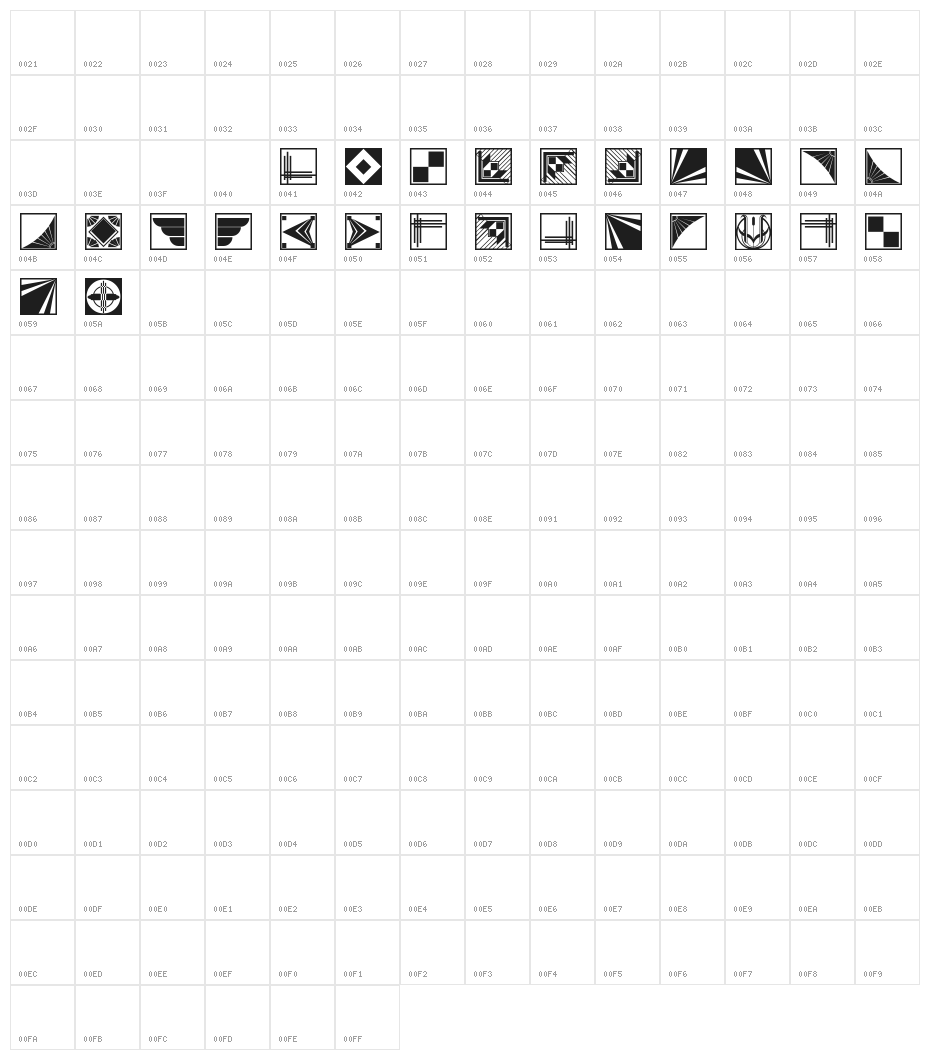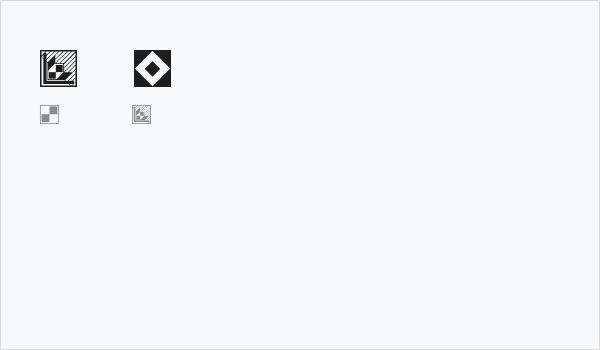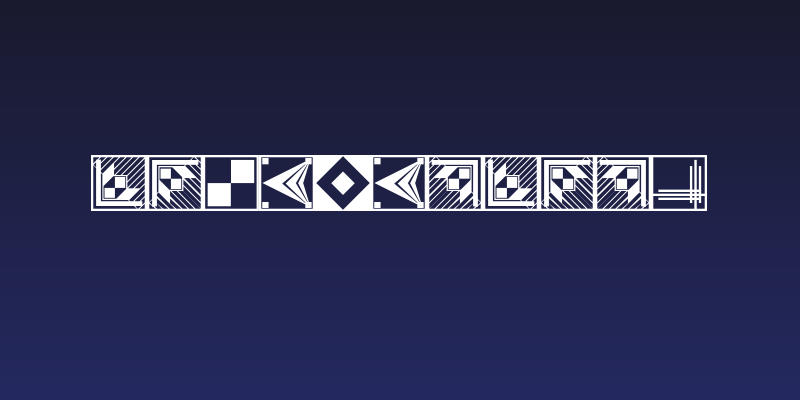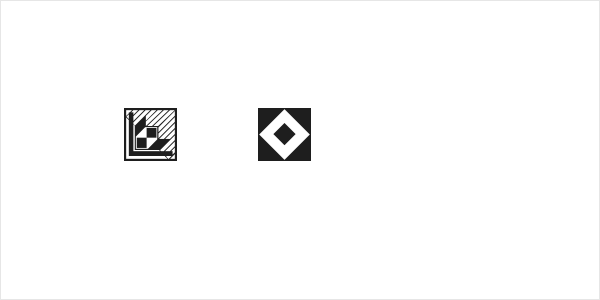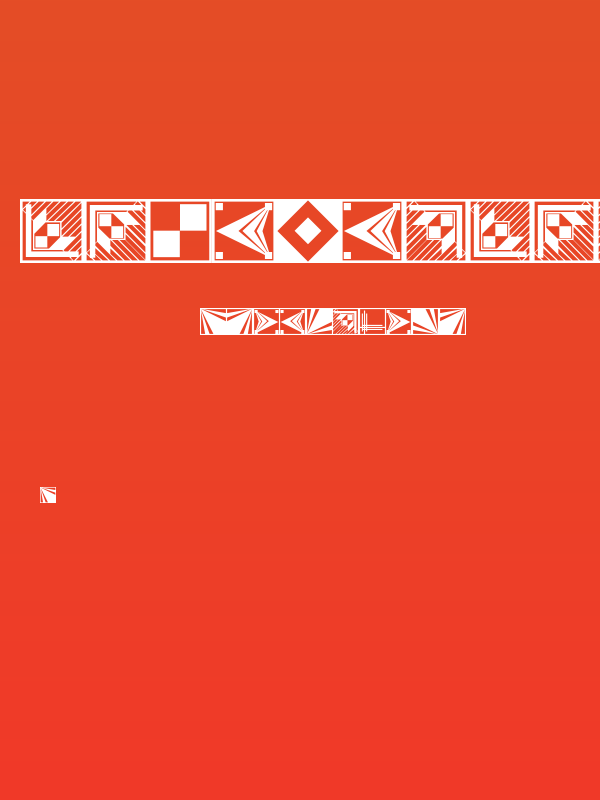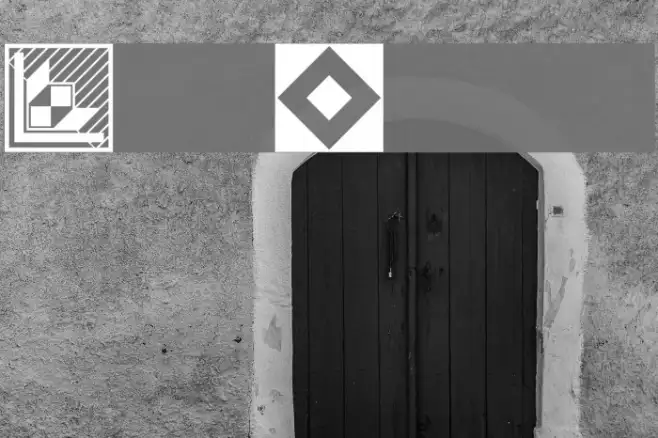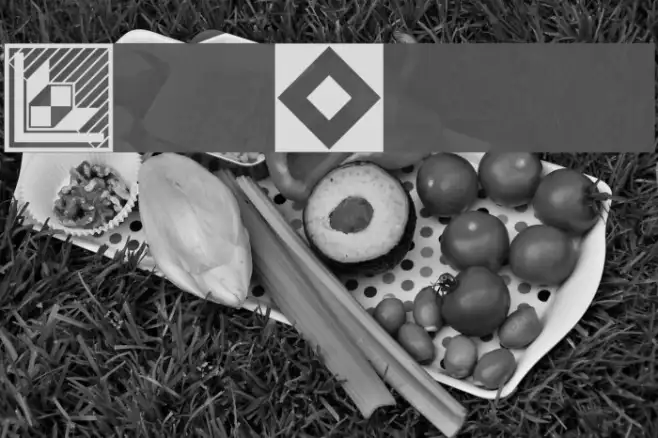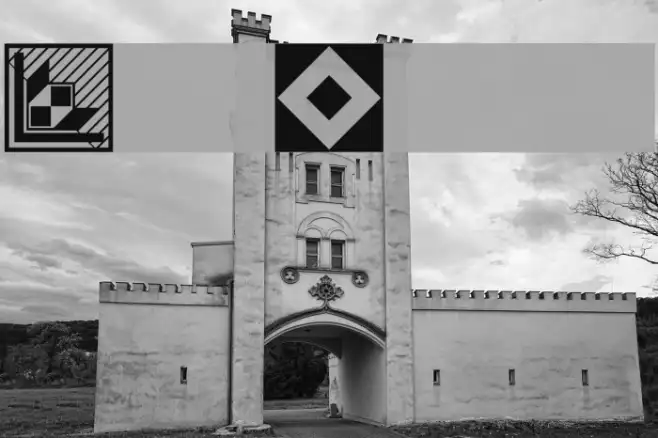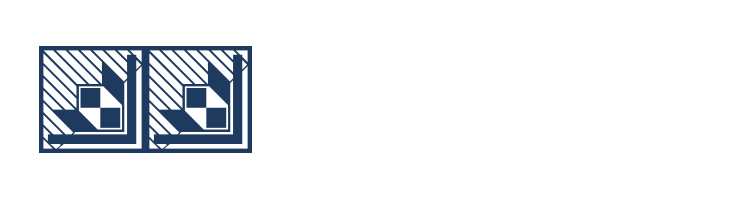
DecoBorders Font
DecoBorders Description
A decorative border font featuring geometric, symmetrical, and highly stylized black-and-white Art Deco motifs. Each character is a unique border or corner design, with bold lines, sharp angles, and intricate patterns.
| Overall Style | Decorative, Art Deco, Vintage |
| Use Case | Borders, frames, dividers, decorative accents |
| Proposed Projects | Invitations, certificates, posters, packaging, digital frames, scrapbooking, ornamental dividers. |